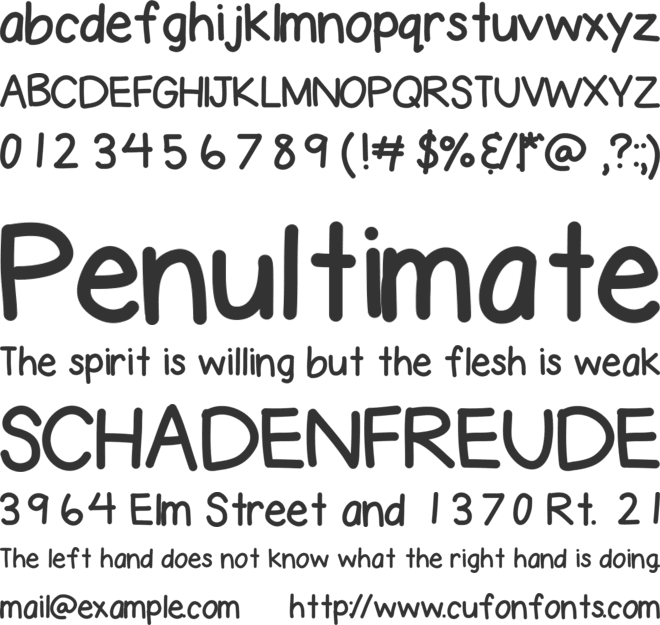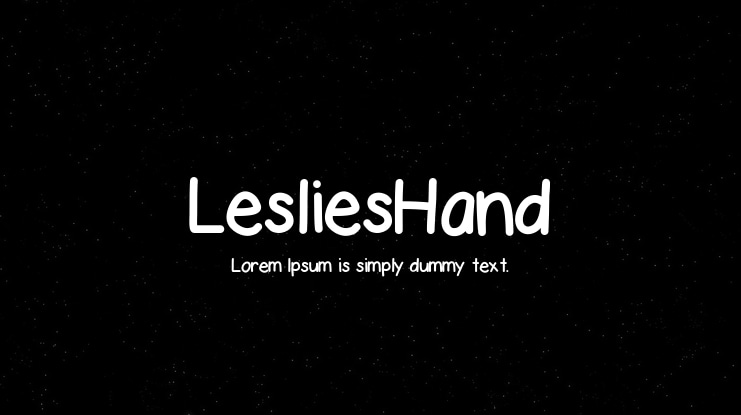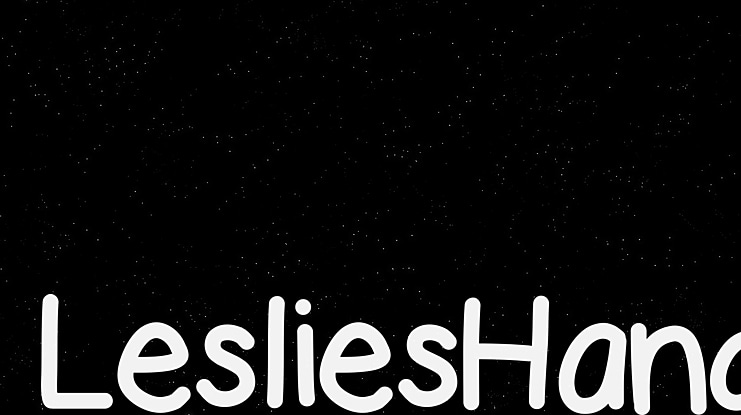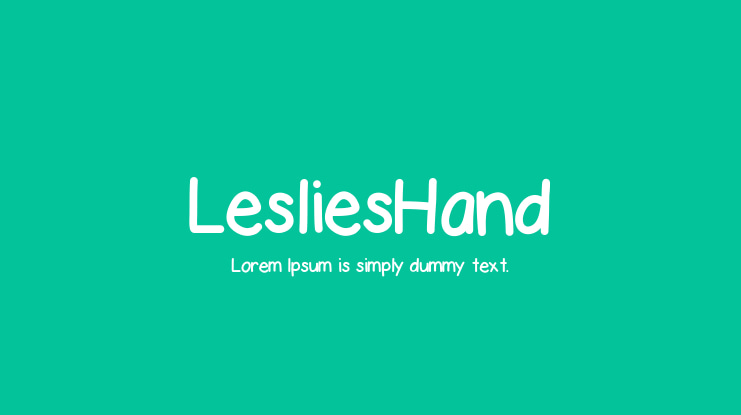
LesliesHand Font
This font is created after my own Kinder-modeled handwriting. It is designed to be simple and clean! It is a .ttf (True-Type Font) file in a zipped folder. You'll need to unzip (right click and select "extract") the folder in order to access the font to install.Includes all uppercase letters, lowercase letters, numerals and main punctuation characters.Permissions:You can use this font to create personal use and/or commercial use items.Credit given back to KindergartenWorks is greatly appreciated!If you download this FREE item and like it, FOLLOW KindergartenWorks. You'll be able to easily find us again!www.kindergartenworks.com (http://www.kindergartenworks.com)www.facebook.com/KindergartenWorks (https://www.facebook.com/KindergartenWorks)plus.google.com/113465763087114681774/posts (https://plus.google.com/113465763087114681774/posts)